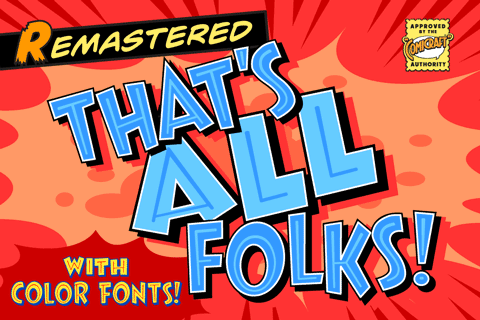
Thats All Folks
Thats All Folks font
Run amuck and head on down to Toon Town with us to enjoy some Madcap Laffs with our latest Frolicking Font, ’THAT’S ALL FOLKS’. It’s good, clean family fun for all your favorite comic cuts and looney’toons! What’s more, it’s (sing along) S-O-E, A-S-Y, T-O-U-S-E!
• Six weights with alternate uppercase alphabets
Plus: Automatic alternates & Crossbar I Technology™ plus Regular & Bold Color Fonts